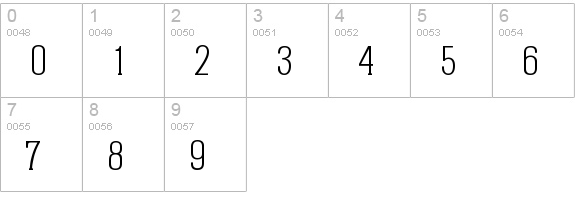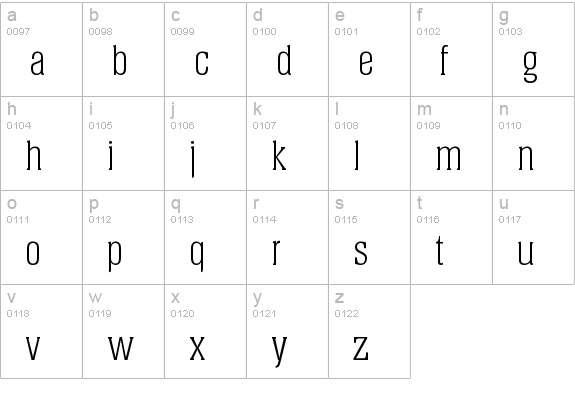
HeliumSerial-Light-Regular is a refined, elegant variant in the HeliumSerial typeface family \xE2\x80\x94 well suited to elegant body text, refined sub-headings, and luxury branding.
HeliumSerial-Light-Regular is a versatile and elegant font that exudes a sense of modernity and sophistication. With its clean lines and balanced proportions, this font is perfect for a wide range of design projects, from branding to editorial design. The light weight of the font adds a touch of delicacy and refinement, making it ideal for conveying a sense of elegance and professionalism. One of the best things about HeliumSerial-Light-Regular is that it is available for free download at FontsMarket.com. This means that you can easily access and use this beautiful font in your projects without any cost. Whether you are a professional designer looking for a quality font or a hobbyist looking to enhance your creations, HeliumSerial-Light-Regular is a fantastic choice that won't break the bank. Download it today and elevate your designs with this stylish and versatile font.